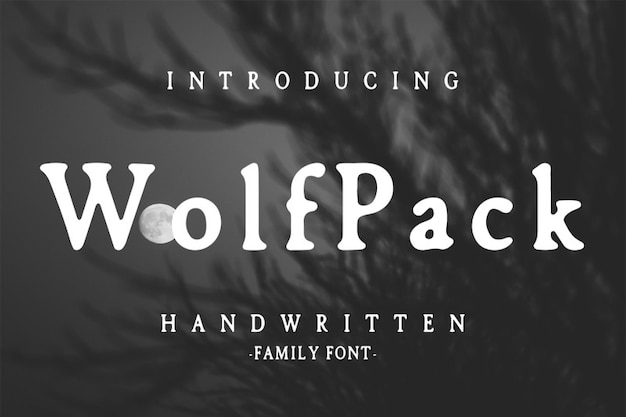
Wolfpack Font
"Wolfpack" font prowls with the untamed spirit of a wolf under the moonlight. Handwritten strokes evoke the wild essence of the animal, while each letter howls with raw energy. Perfect for designs needing a touch of primal allure, invoking the mystique of the nocturnal wilderness.